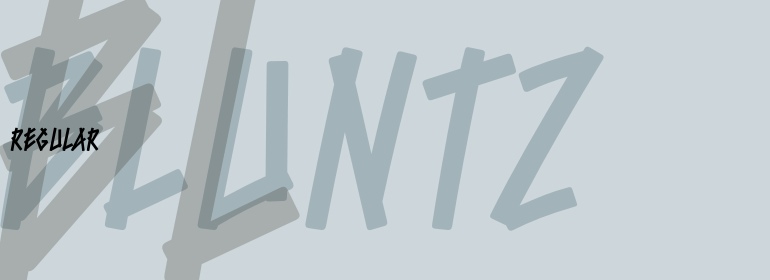
Bluntz Font
Bluntz Font is perfect for edgy streetwear branding, urban skateboard shops, alternative music venue signage, graffiti-inspired art galleries, hip-hop culture marketing, underground fashion labels, street art exhibitions, and rebellious youth-oriented campaigns. This bold typeface excels in applications where street authenticity and urban edge are essential for creating impactful and genuine brand experiences that celebrate underground culture and street credibility.
What makes Bluntz Font truly exciting is its raw embodiment of street culture authenticity and urban grit that captures the unfiltered energy of city streets and the honest expression of underground artistic movements. The font features thick, bold letterforms with blunt edges and street-inspired character details that mirror the direct communication style of street art and the no-nonsense attitude of urban culture. Its straightforward personality and street-smart character create an immediate sense of authenticity and urban credibility that resonates with audiences seeking genuine street culture experiences and uncompromising artistic expression. The typeface's street heritage and urban appeal make it perfect for brands wanting to convey authenticity, edge, and connection to the raw energy of street culture and underground artistic movements.
The Bluntz Font family includes regular and heavy weights with street-inspired styling, complemented by urban alternates and graffiti-influenced decorative elements. The font offers comprehensive character sets with street symbols, urban ligatures, and underground styling details that enhance its authentic aesthetic. Additional graphic elements including spray patterns, street motifs, urban ornaments, and graffiti-inspired flourishes provide designers with complete branding tools rooted in street culture and underground art traditions.